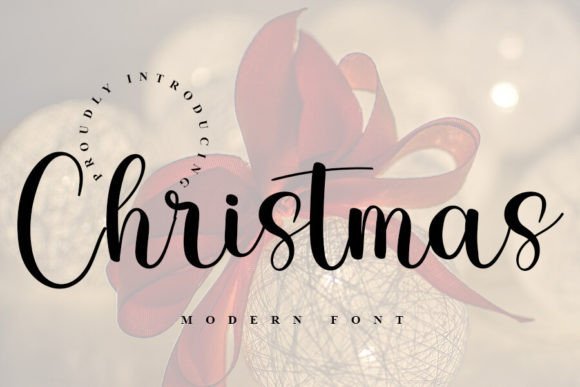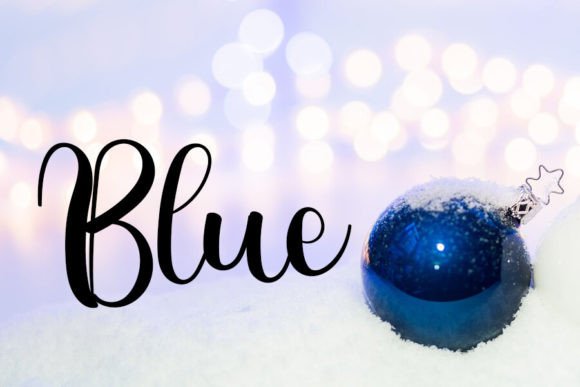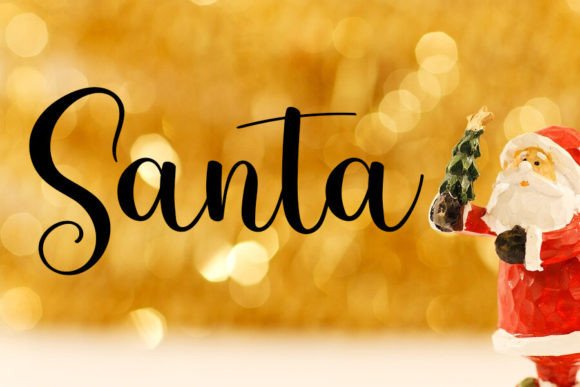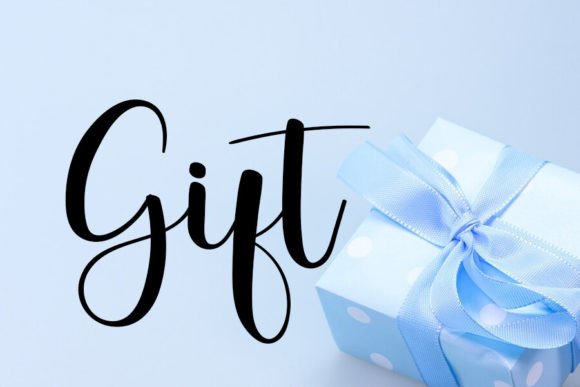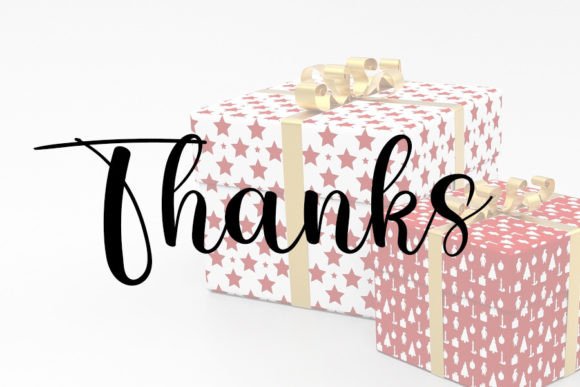
Deck the Halls with Holiday Cheer: Introducing the Christmas Font
As a designer, there’s nothing quite like the rush of creativity that comes with planning a holiday campaign or designing festive marketing materials. The twinkling lights, the cozy atmosphere, and the warmth of the season all come together to spark inspiration. And what’s at the heart of it all? A beautiful, elegant font that captures the essence of Christmas.
Enter the Christmas Font, a refined script font that exudes class and sophistication. With its modern look and feel, it’s perfect for logos, branding, invitations, stationery, wedding designs, social media posts, and more. Whether you’re a seasoned designer or just starting out, this versatile font is a valuable addition to your toolkit.
Key Features of Christmas Font
- Unique Characteristics: The font features a festive, hand-drawn design with intricate details and ornaments, evoking a sense of holiday cheer and warmth.
- Style Variations: The font family includes various style variations, such as Regular, Bold, Italic, and Bold Italic, allowing designers to choose the perfect look for their project.
Designer Review: Christmas Font
Overall, I think Christmas Font is a fun and festive option for holiday-themed designs. ✨ The font’s playful, handwritten style adds a personal touch to any project. It’s perfect for creating invitations, social media posts, or even wrapping paper.
- ✨ Easy to read: The font’s letterforms are clear and well-spaced, making it easy to read even at small sizes.
- ✨ Versatile: Christmas Font works well in a variety of contexts, from traditional holiday designs to more modern and trendy looks.
- ✨ Unique: The font’s distinctive style helps it stand out from more generic holiday fonts.
However, there are some limitations to keep in mind:
- ⚠️ Limited language support: Christmas Font may not support all languages, which could be a problem for international designs.
- ⚠️ Limited character set: The font may not include all the characters you need, such as accented letters or special symbols.
Overall, I think Christmas Font is a solid choice for holiday designs. While it has some limitations, its unique style and versatility make it a great option for designers looking to add some festive flair to their projects.
Use the Christmas Font to add a festive touch to your holiday cards, invitations, and decorations. You can also use it to create eye-catching social media posts and ads. To get the most out of the font, experiment with different font sizes, colors, and styles to create a unique look. You can also pair the Christmas Font with other festive graphics and elements to create a cohesive design.